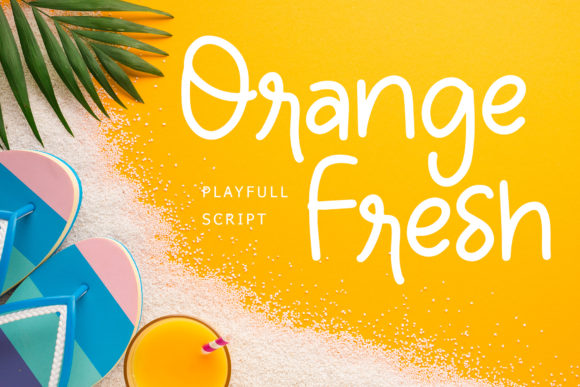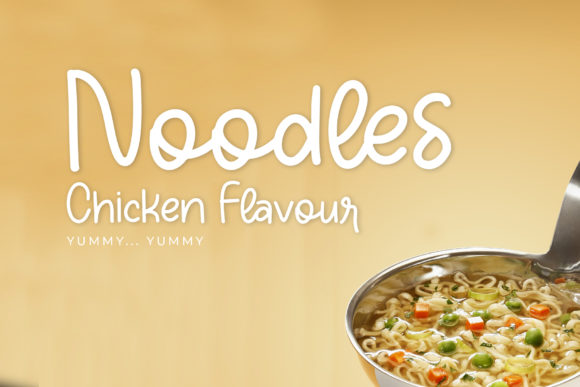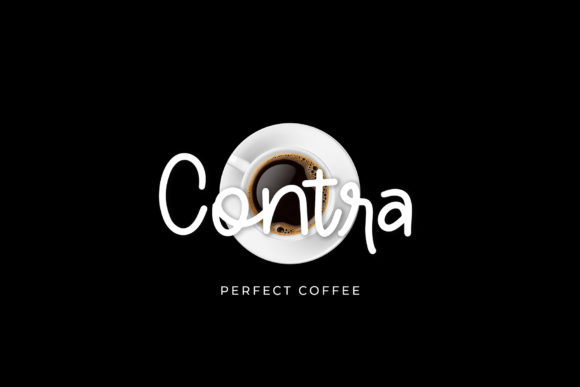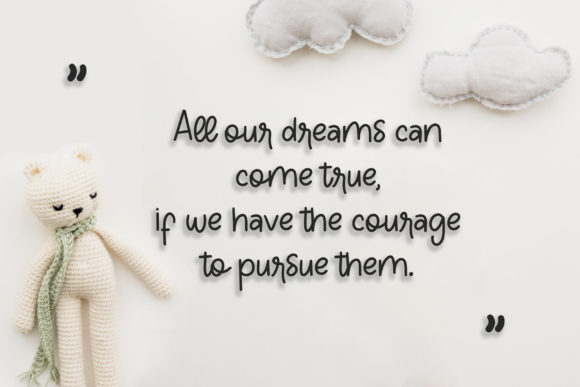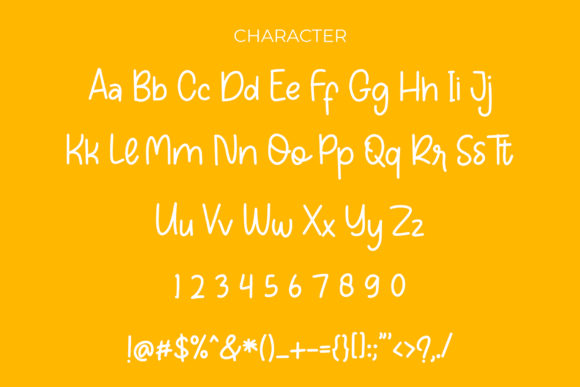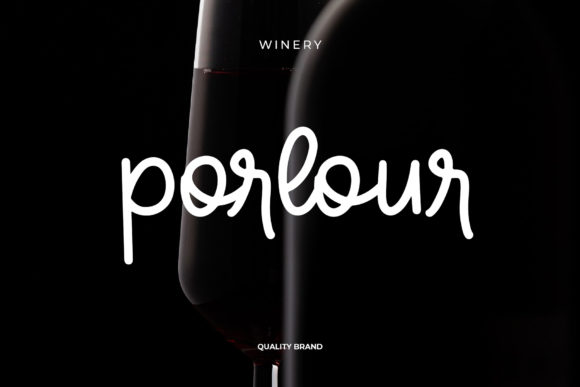
Orange Fresh Font
About Orange Fresh Font
Orange Fresh is a simple and casual handwritten font with an undeniably clean feel. With its neat and beautiful arrangement of letters, this typeface will look outstanding in both formal and non-formal designs.